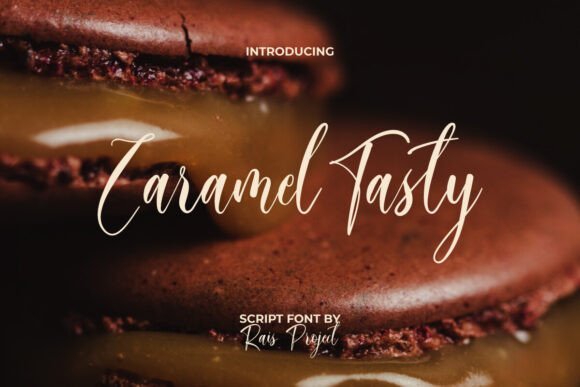
The Sweet Spot for Designers: Caramel Tasty Font
Have you ever been scrolling through your favorite design feed and stumbled upon a beautifully crafted logo that makes you stop and swoon? For designers, moments like these are what fuel our creativity and inspire us to push the boundaries of our craft. It’s in these moments that we search for the perfect font to elevate our designs and make them truly unforgettable.
Enter Caramel Tasty Font, a stunning calligraphic script font that exudes elegance and sophistication. This beautiful font is designed to add a touch of warmth and personality to any design, making it perfect for branding, packaging, and more. With its timeless style, Caramel Tasty Font is a valuable addition to any designer’s toolkit, offering endless possibilities for creative expression.
Caramel Tasty Font Key Features
- Font Family: Caramel Tasty Font is a unique, handwritten font family that includes a variety of styles and weights.
- Unique Characteristics: Caramel Tasty Font features a distinctive, cursive script style with a mix of bold and delicate lines, making it perfect for adding a touch of elegance and sophistication to designs.
- Styles and Weights: The font family includes various styles and weights, such as regular, bold, italic, and bold italic, allowing designers to choose the perfect look for their project.
Caramel Tasty Font Review
Overall, I think the Caramel Tasty Font is a great addition to any designer’s toolkit. It has a unique and playful style that’s sure to grab attention.
- Expressive and whimsical design, perfect for creating a fun and approachable tone.
- Good for use in food and beverage branding, as well as children’s products or entertainment.
- Wide range of weights and styles available, making it easy to find the perfect fit for your project.
- May not be suitable for formal or professional branding, as its playful nature can be overwhelming in certain contexts.
- Some users may find the font’s irregularities and quirks distracting or difficult to read.
- Limited language support, which may be a concern for designers working with non-English clients or projects.
The Caramel Tasty Font is a solid choice for designers looking to add some personality and whimsy to their projects. While it may not be the best fit for every project, it’s certainly worth considering when you need a font that stands out.
The Caramel Tasty Font is ideal for creating a warm and inviting atmosphere in food-related branding, packaging, and advertising.
Use it to create eye-catching headings, titles, and body text for restaurant menus, food blogs, and cookbooks.
Experiment with different font sizes, colors, and styles to add visual interest and create a unique brand identity.
Alternative Fonts to Caramel Tasty Font
Great Vibes is a modern, elegant script font that’s perfect for adding a touch of sophistication to your designs. It’s ideal for use in titles, headings, and body text where a cursive or handwritten feel is desired.
Compared to Caramel Tasty Font, Great Vibes is more refined and less playful, making it a better choice for formal or professional designs.
Alex Brush is a beautiful, hand-drawn script font that’s great for adding a personal touch to your designs. It’s perfect for use in titles, headings, and body text where a elegant, handwritten feel is desired.
Compared to Caramel Tasty Font, Alex Brush is more sophisticated and less playful, making it a better choice for formal or professional designs.